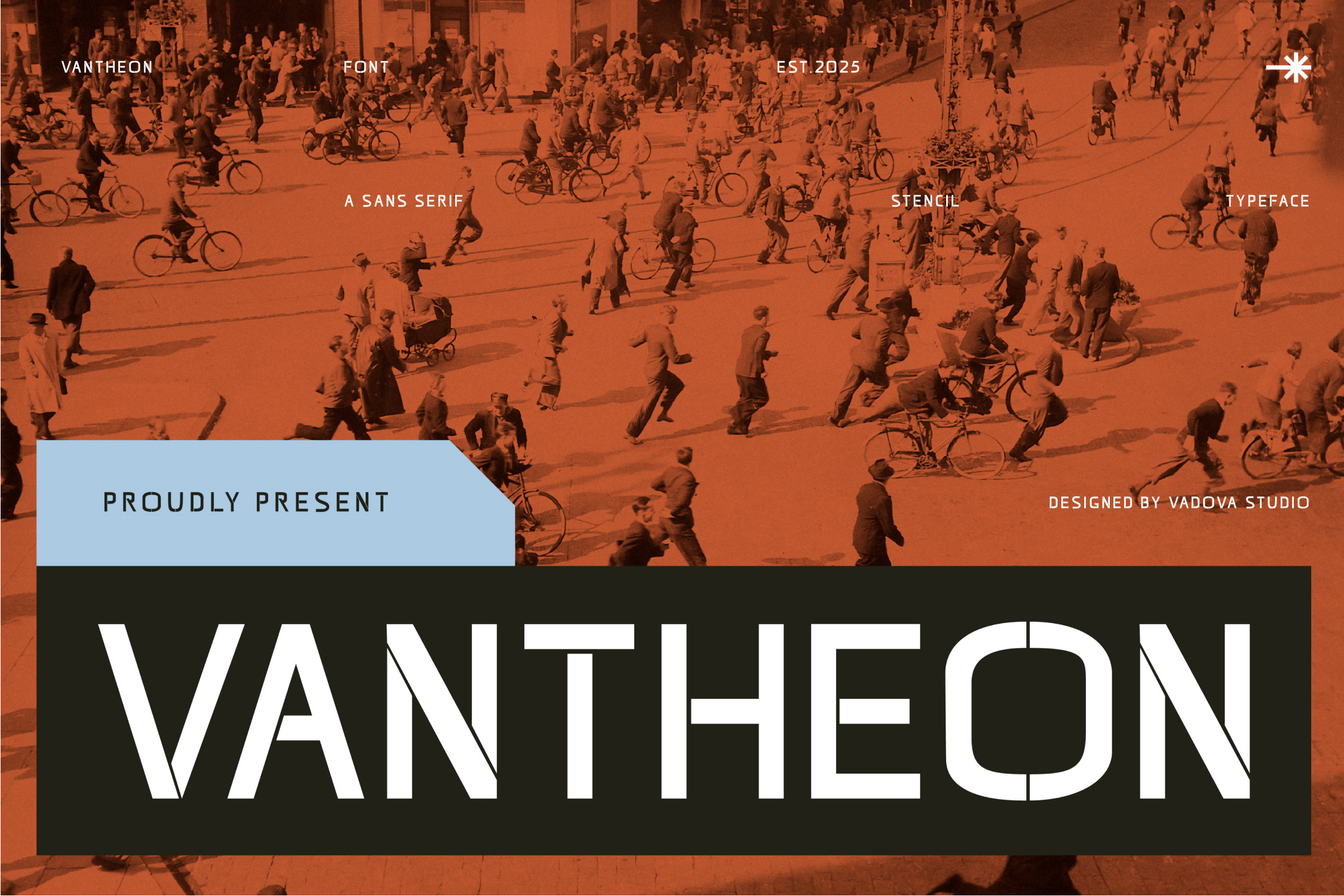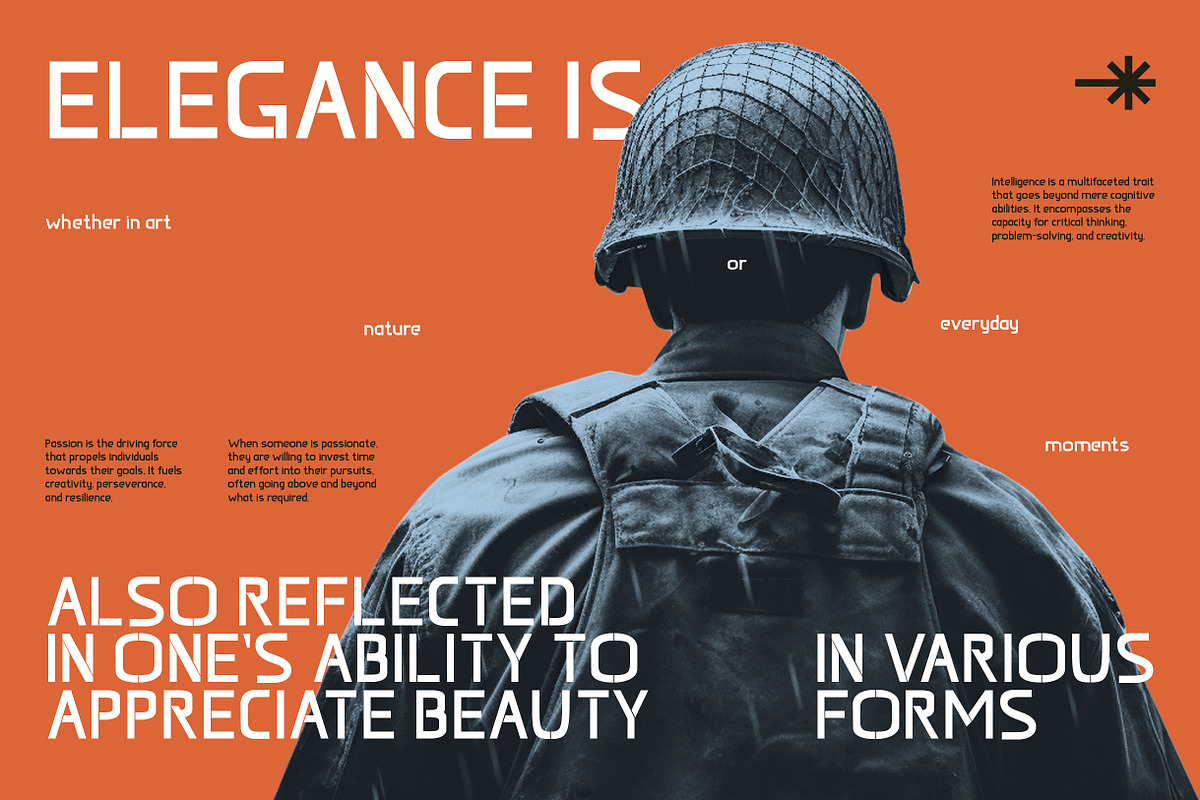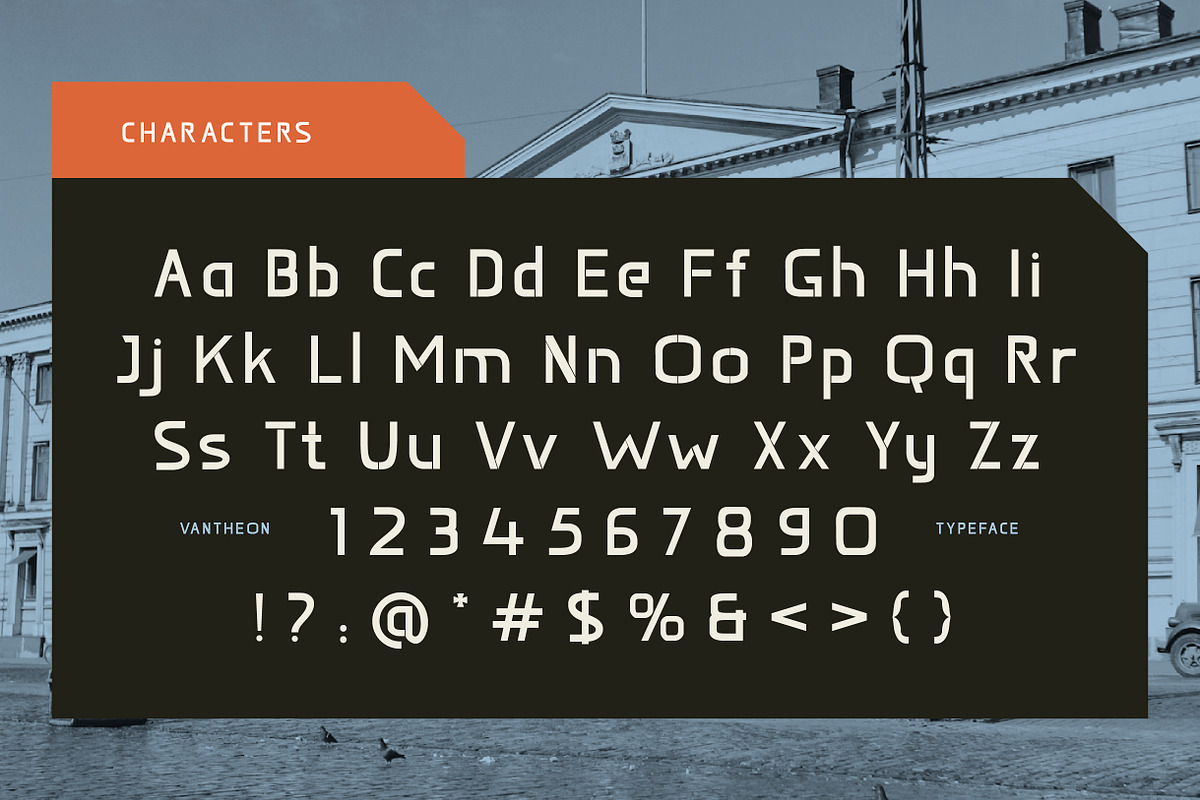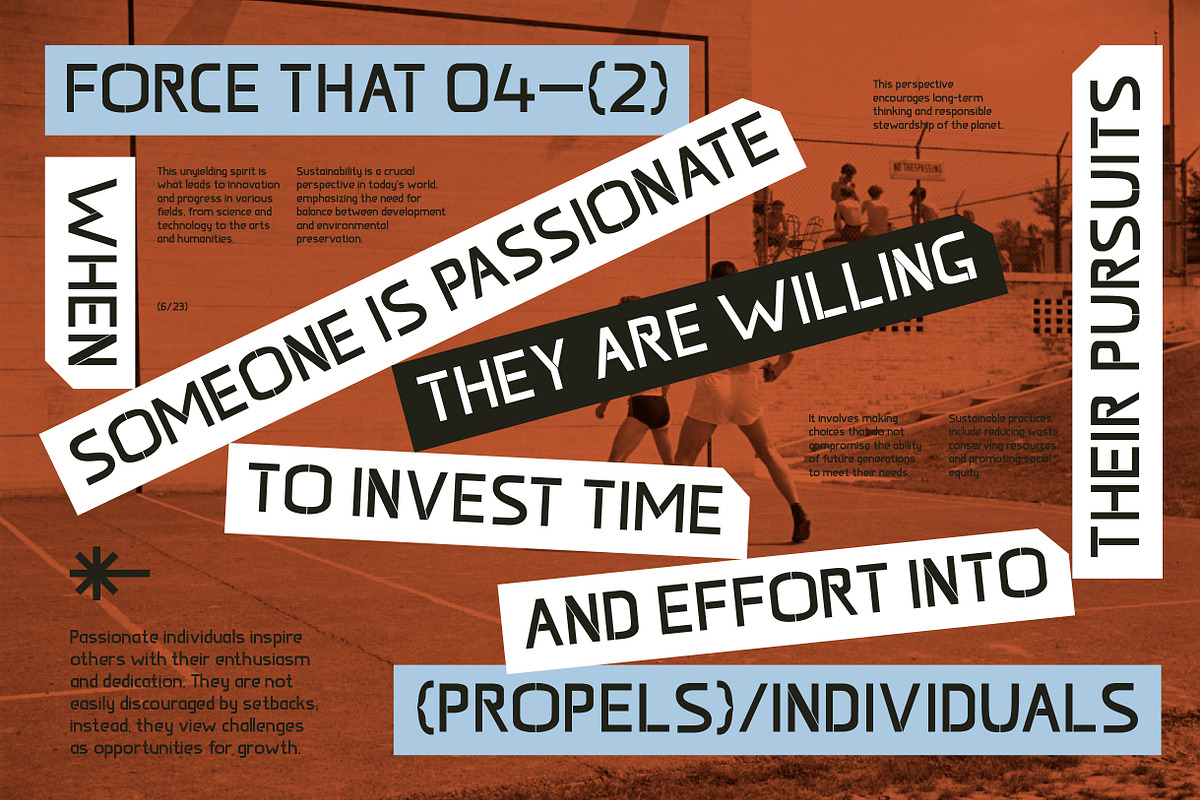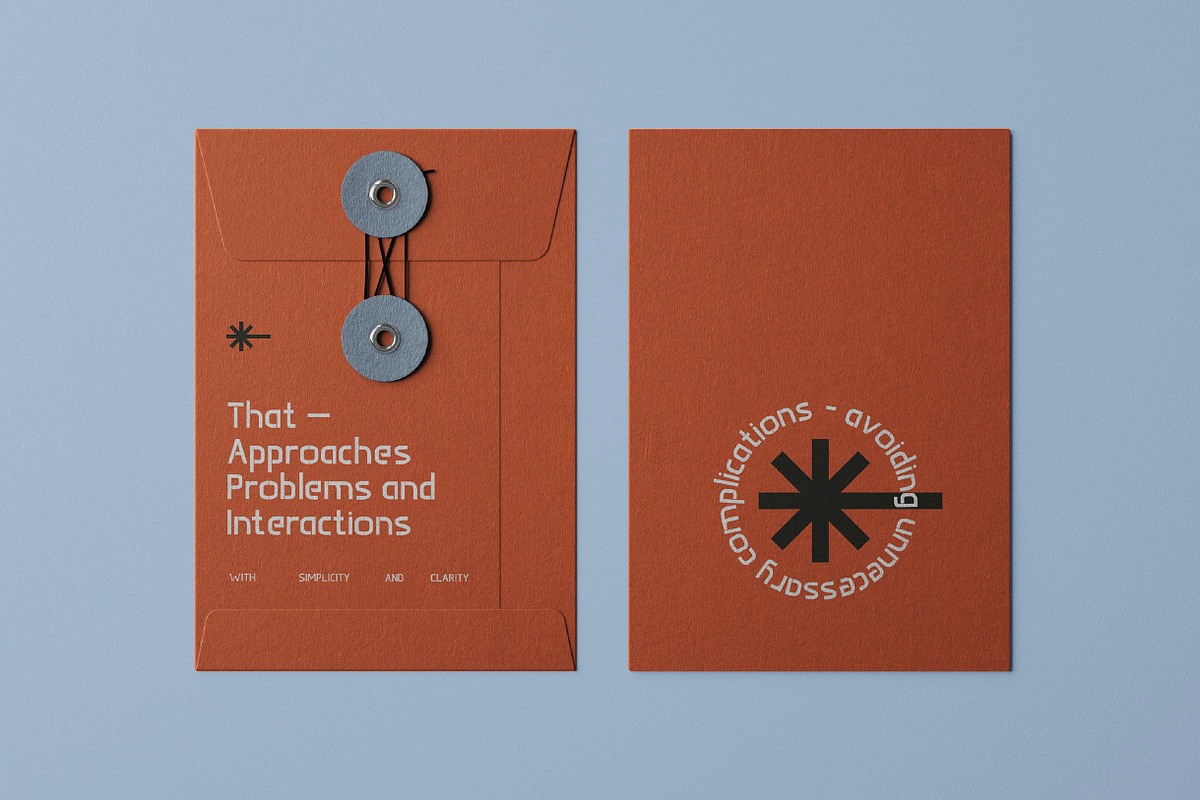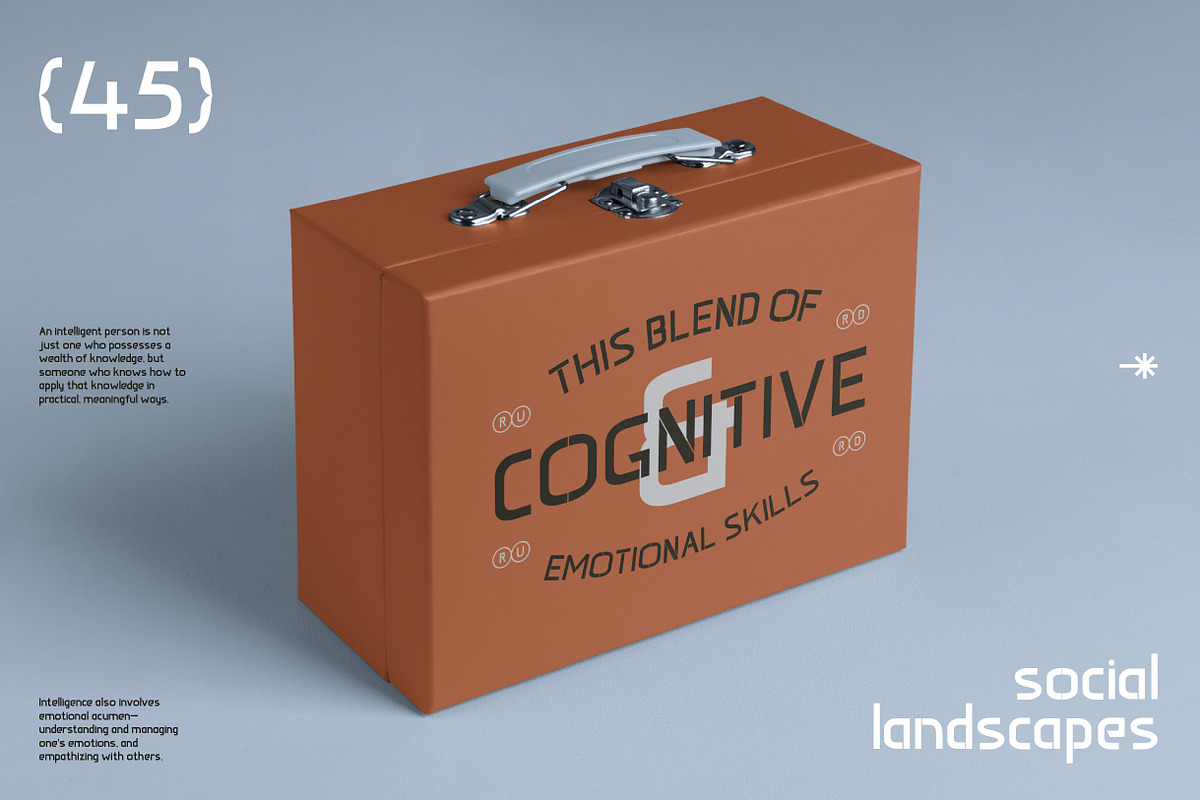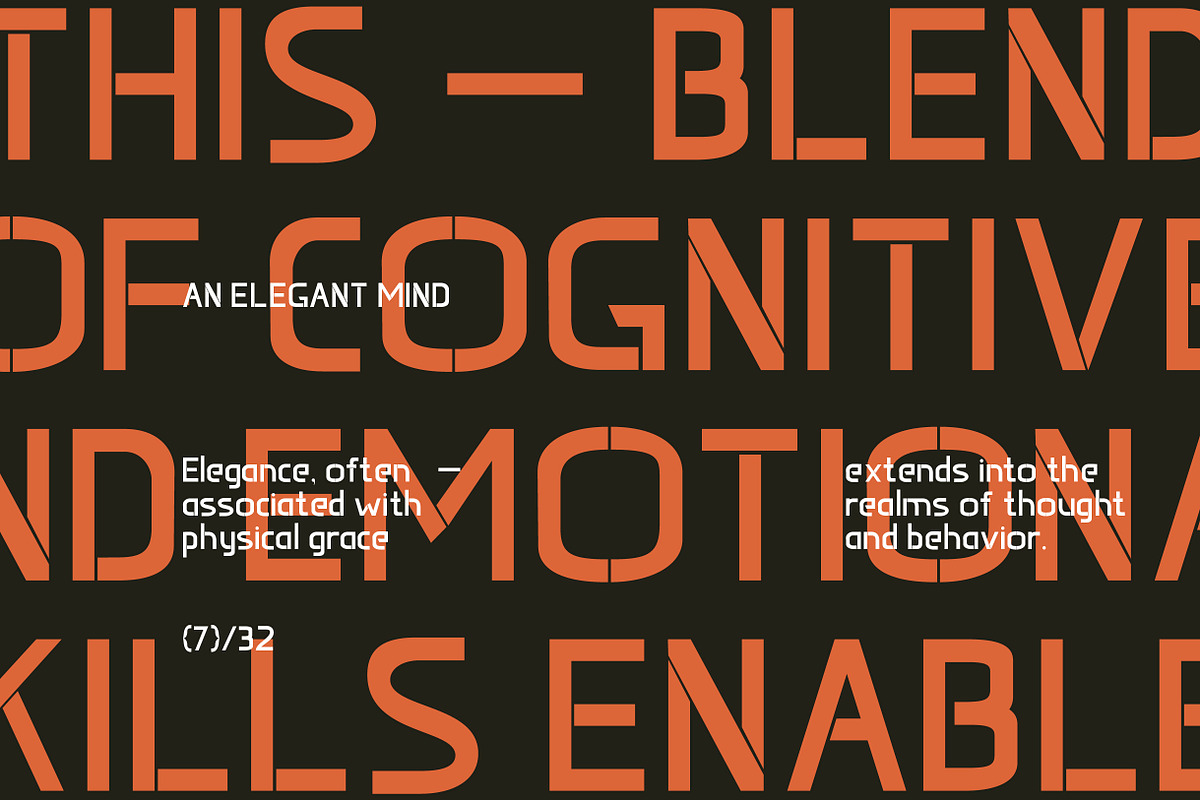
Vantheon Sans Serif Font
Vantheon is a sans serif font with industrial strength and sharp editorial polish. Its defining trait is the stencil-style cut within each letterform—bold yet refined—creating a sleek, utilitarian rhythm across all characters. The font reflects both efficiency and sophistication, echoing military aesthetics, Bauhaus structure, and clean modular design.
Vantheon—a modern stencil sans serif font built for designers who crave structure, clarity, and bold visual energy. From powerful editorial spreads to cutting-edge branding, Vantheon brings authority and motion to every word.
Its sans serif construction paired with stencil cuts delivers a perfect mix of modernist utility and futuristic flair. Whether you're designing urban magazines or dynamic event graphics, Vantheon adapts seamlessly to grid-based layouts, digital screens, or impactful print.
Main Features
- Ligatures & Alternate
- Numeral & Punctuations